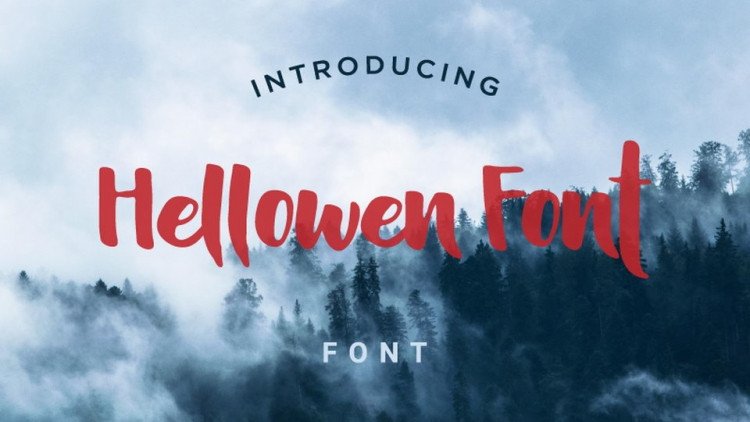
Hellowen Script Font
Hellowen Script Font is a cute handwritten script font, with strong bold touches and rounded curves on each letter. Free version has limited set of glyphs.
Hellowen font is perfect for display, lettering, logos, wedding invitation and many more!